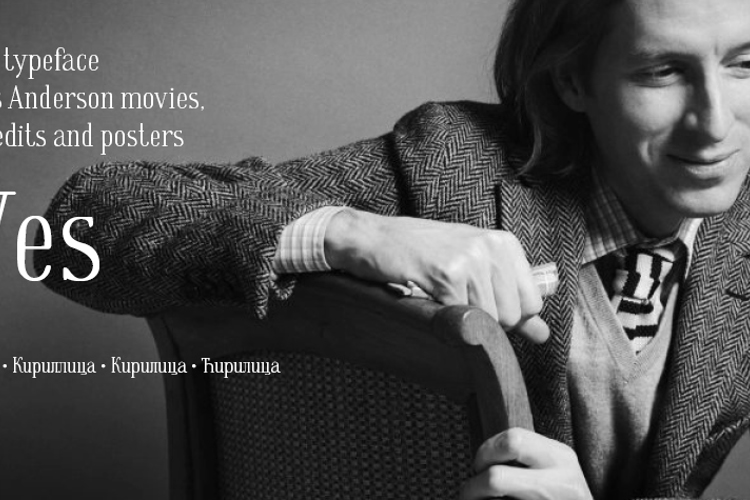
Wes Font
eated during an online course at the TypeType School of fonts and typography, the Wes font draws inspiration from Wes Anderson's iconic aesthetic – think symmetrical compositions, pastel palettes, and whimsical storytelling. Designer Yelena Madyankina, a devoted fan of Anderson's films, aimed to produce a font ideal for Wes Anderson movie credits, posters, and titles.
Influenced by Woody Allen's signature use of Windsor Light Condensed (white text on black background), Wes blends traditional serif elements with emotional, introverted character. It captures the essence of a "deep and rich inner world," making it versatile for cinematic branding, editorial design, and creative projects.